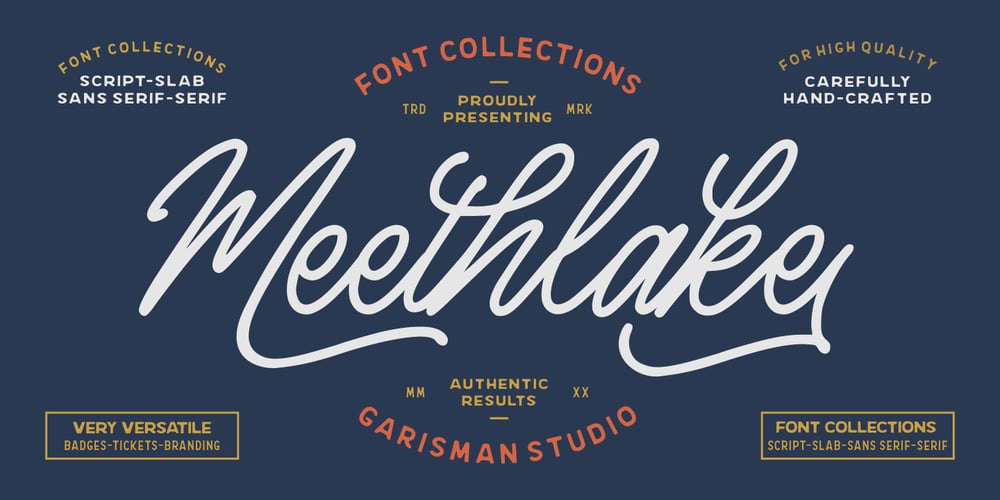
Meethlake Font Family was designed by Risman Ginarwan and published by Garisman Studio. Meethlake contains 3 styles and family package options. Meethlake was born from an inspiring vintage display. This font gives a feel of a vintage, classic, old, handmade looked like. Already PUA Encoded, this font is perfect for people looking for vintage aesthetic or logo-type. It’s suitable for any graphic designs such as branding materials, t-shirt, prints, business cards, logos, posters, t-shirts, photography, quotes, and more. – Meethlake Script, Meethlake One, Meethlake Two, Meethlake Three. – Numerals & Punctuations – Meethlake Script support Ligature, Stylistic Sets, Contextual Alternates, and Swashes. – Simple installation and choose the Opentype (especially in Meethlake Script) – PUA encoded open (open with Character Map on Windows and Font book on MAC) – Multilingual characters